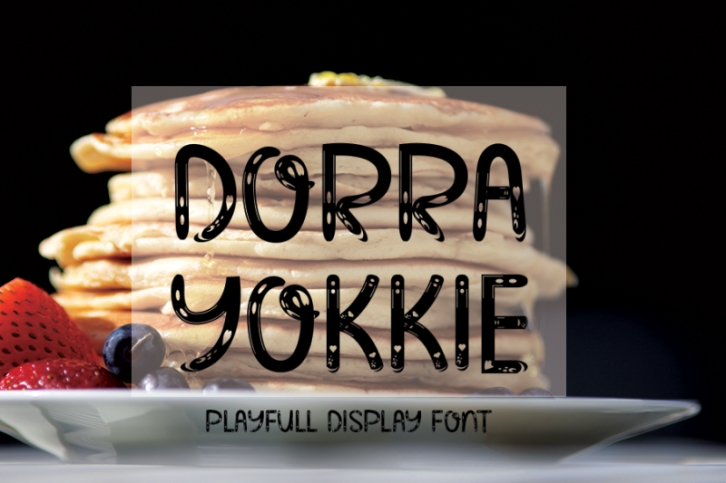
Dorra Yokkie is a flowing, Display font, described with a touch of elegance, perfect for your favorite projects. Fall in love with its completely different and timeless style and can use it to create wall designs, logos, wedding invitations, stationery, product labels, photography and much more.
+More than 100+ Glyphs
+More than 43 Languages
+PUA-Encoded for many alternates and ligatures